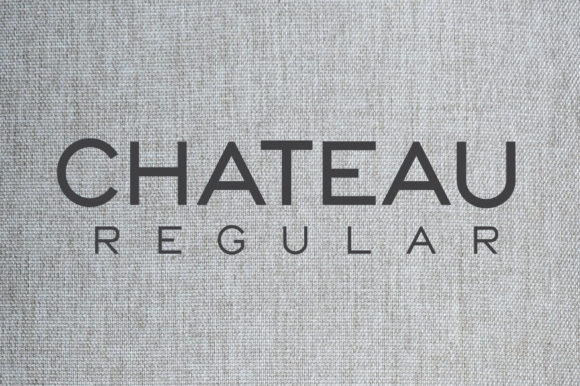
Presenting Chateau Font, the epitome of elegance and sophistication in the world of typography. This modern sans serif font, crafted by the talented hands at pointsandpicas, is not just a collection of letters; it's an artistic masterpiece that will elevate your designs to new heights.
With its clean lines, minimalist aesthetic, and subtle curves, Chateau Font exudes a timeless appeal that will never go out of style. Its versatility knows no bounds, making it the perfect choice for a wide range of projects, from sleek logos and stylish branding to eye-catching headlines and captivating book covers.
Step into a world of creativity where Chateau Font takes center stage, transforming your words into stunning visuals that captivate and inspire. Whether you're a seasoned designer or just starting your creative journey, this font will become your trusted companion, bringing life to your ideas and leaving an unforgettable impression on your audience.
Imagine your designs adorned with Chateau Font, commanding attention with its understated charm. Picture your book covers radiating an aura of mystery and allure, enticing readers to delve into the worlds you've created. Visualize your logos exuding professionalism and elegance, leaving a lasting impact on potential customers.
Chateau Font is more than just a font; it's an investment in your creative endeavors. Its versatility and timeless appeal ensure that it will remain a valuable asset in your design toolkit for years to come. So why settle for ordinary when you can embrace the extraordinary? Download Chateau Font today and unlock a world of design possibilities.